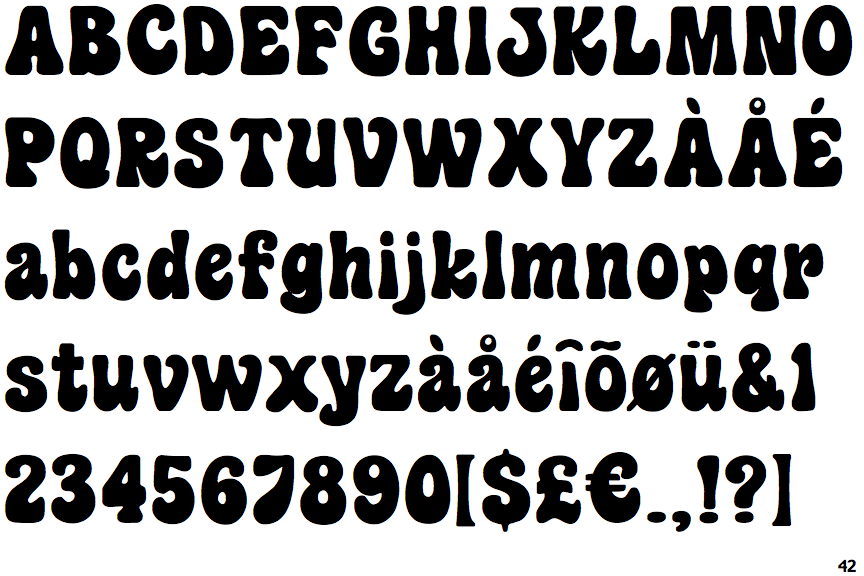
List Of Fonts Of The 60S References
List Of Fonts Of The 60S References. 60s fonts explore 1,684 stunning 60s fonts to download and find the perfect match that fits your next web and print design projects of all sizes. We have 39 free 1960s, script fonts to offer for direct downloading · 1001 fonts is your favorite site for free fonts since 2001
Category:typefaces and fonts introduced in the 1960s 1910s 1920s 1930s 1940s 1950s 1960s 1970s 1980s 1990s 2000s 2010s 15th 16th 17th 18th 19th 20th 21st 22nd 23rd 24th 25th. Free seventies groovy fonts, sixties groovy fonts…. Rickey retro script font will bring you to the 60s era where you could find cool posters, advertisements, and labels.
Rickey Retro Script Font Will Bring You To The 60S Era Where You Could Find Cool Posters, Advertisements, And Labels.
The Groovy Type Is Inspired By The Famous Retro Hippie Fonts & Designs Of The Late ’60S And ’70S.
Search results for fonts of the '60s font, free downloads of fonts of the '60s fonts at fonts101.com The retro fonts of the ’60s feature colorful details, another characteristic that makes it steal the show. These retro fonts are often used on billboards even today.
It Was Made By Designer Hadi Spasienko And It’s Perfect For Apparel Prints, Brand Logos, And Any.
Free Seventies Groovy Fonts, Sixties Groovy Fonts….
Our free 1960s fonts are groovy, baby, yeah! Patch work, stickers and bright, vibrant patterns were all the rage back then, so why not treat yourself to a whole selection of free 1960s fonts. 60s fonts explore 1,684 stunning 60s fonts to download and find the perfect match that fits your next web and print design projects of all sizes.